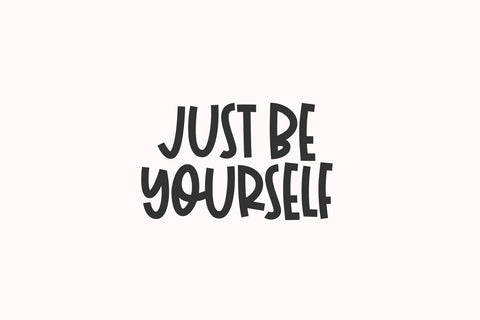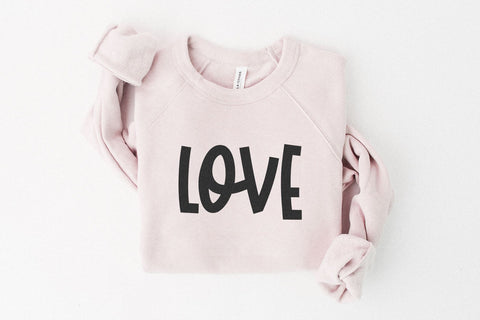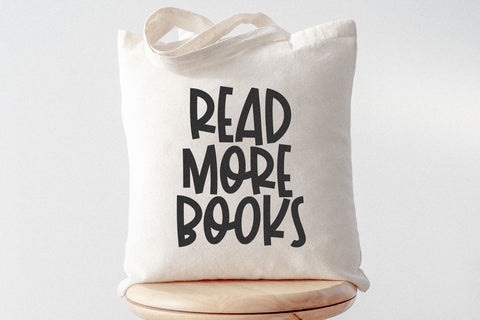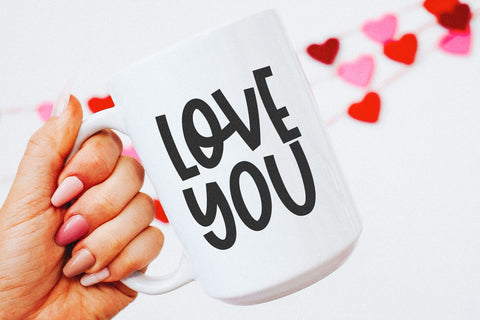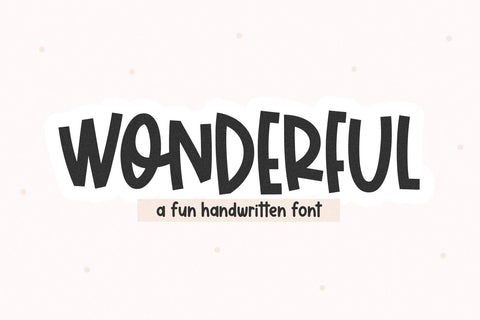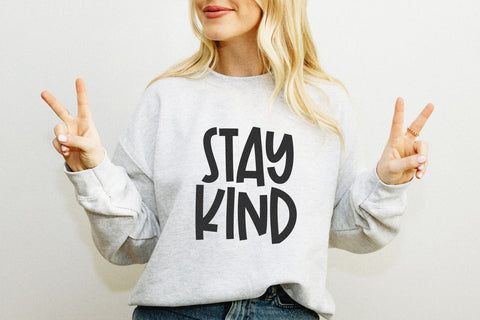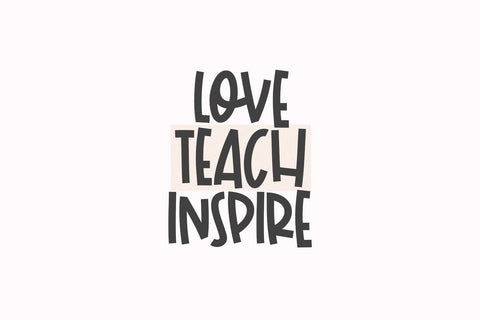
Wonderful - Fun Handwritten Font
Wonderful is a fun handwritten font.
This font is perfect for your crafts, shirts, stickers, logos, svg files and more!